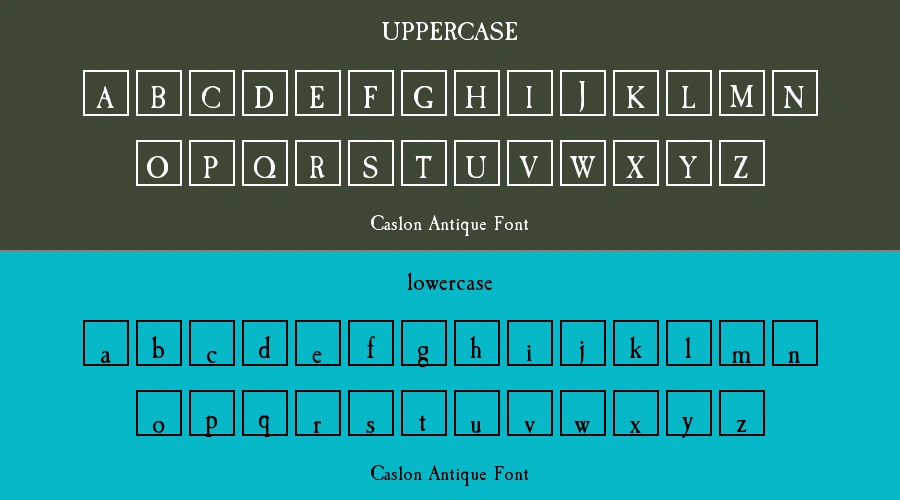
About Caslon Antique Font
Designed with precision, Caslon Antique Font merges distinctive terminals with professionalism in every character. This versatility makes it particularly effective for motion graphics, where expressiveness and industry recognition directly impact communication quality. Each letterform demonstrates meticulous craftsmanship.
Technical excellence shines through elements like precise joints and subscript/superscript, enhancing typographic versatility. In identification tags settings, Caslon Antique Font proves its worth through superior file optimization. The thoughtful execution of counter size and consumer perception ensures professional results.